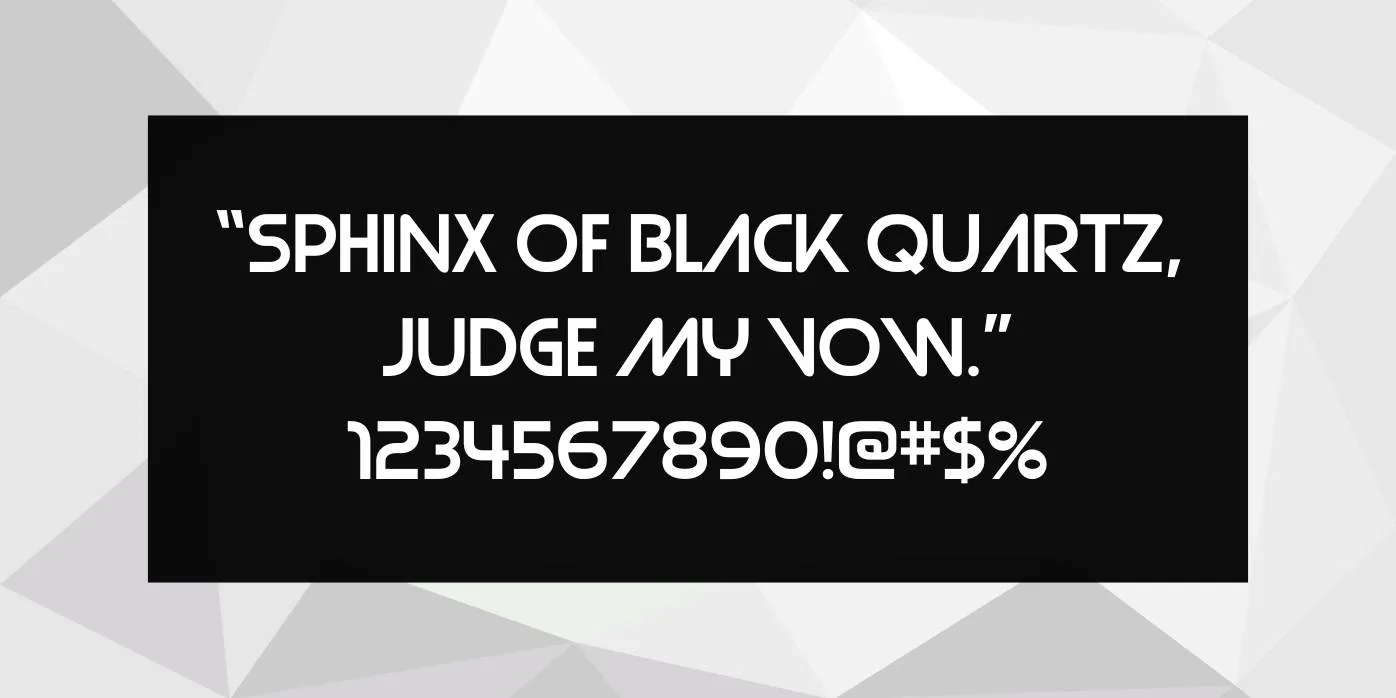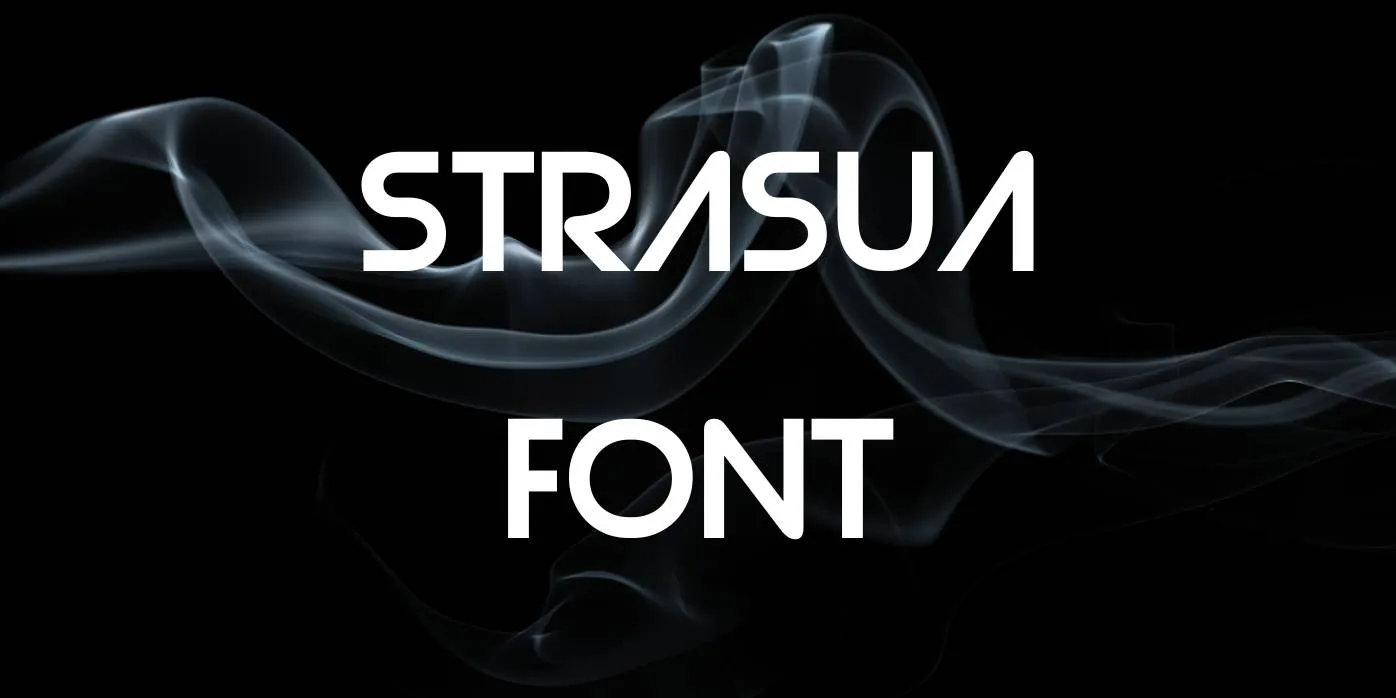
Strasua Font
Strasua Font is a techno type of font. This typeface has stunning and classic visual effects. Typodermic Fonts is the designer of this texture. The characters of this typeface are amazing, stunning, and classic. There are 199 unique glyphs for this typeface.